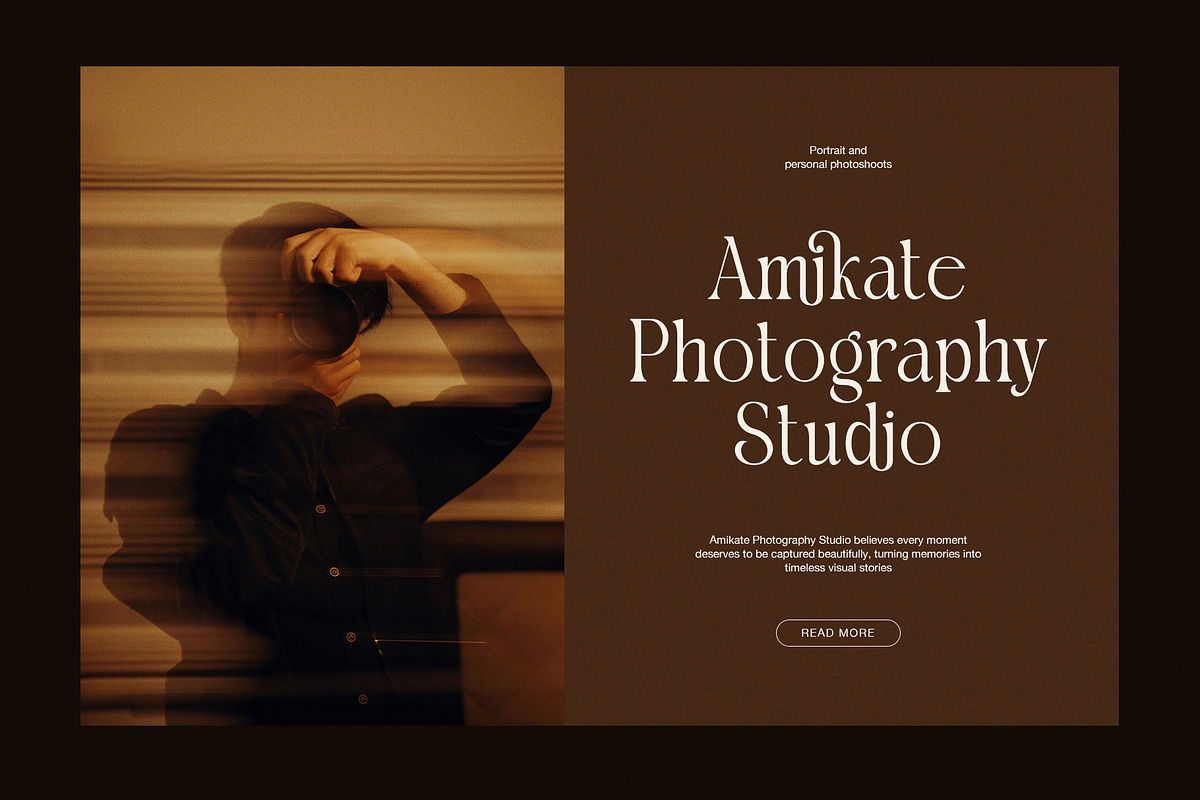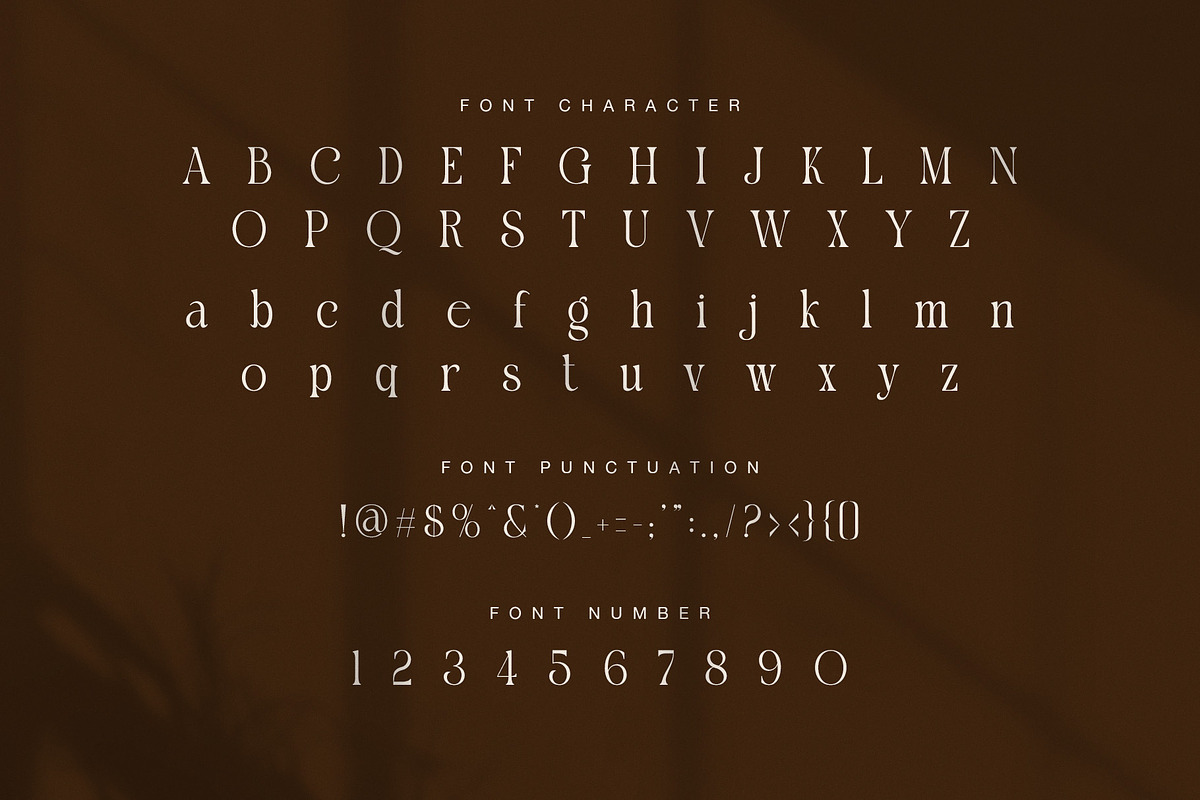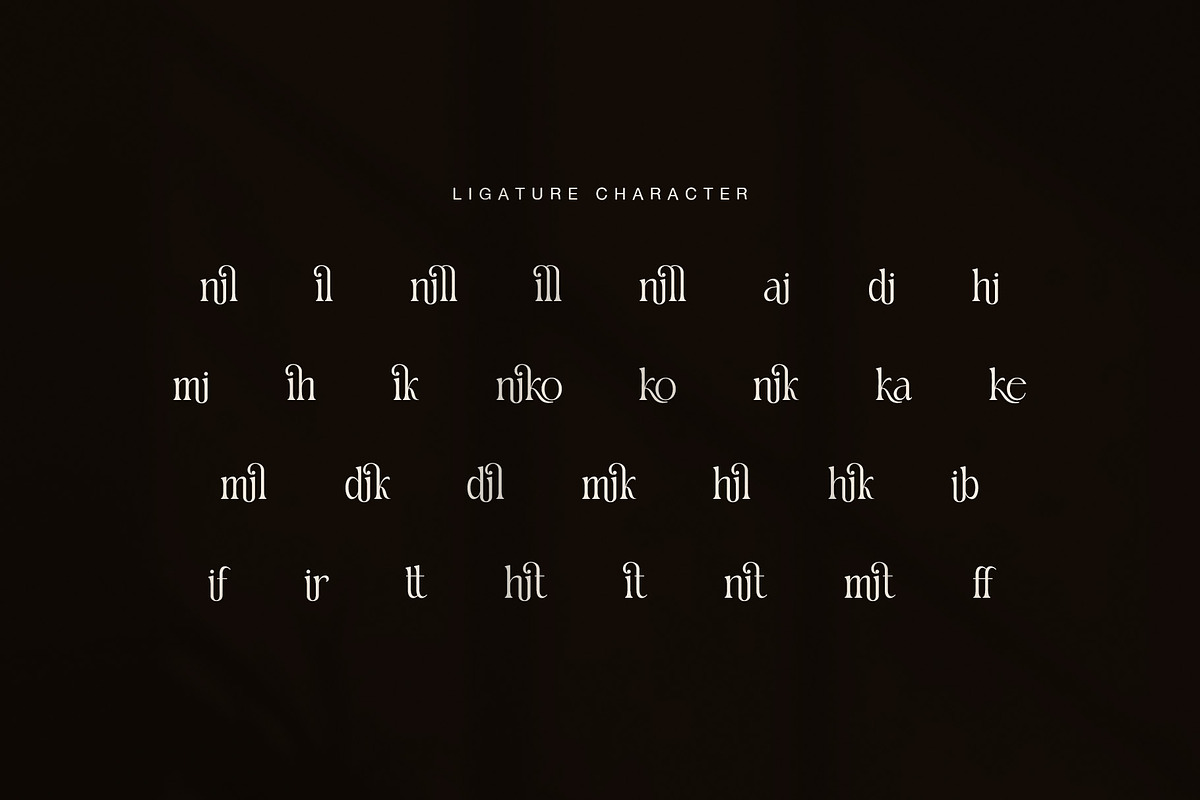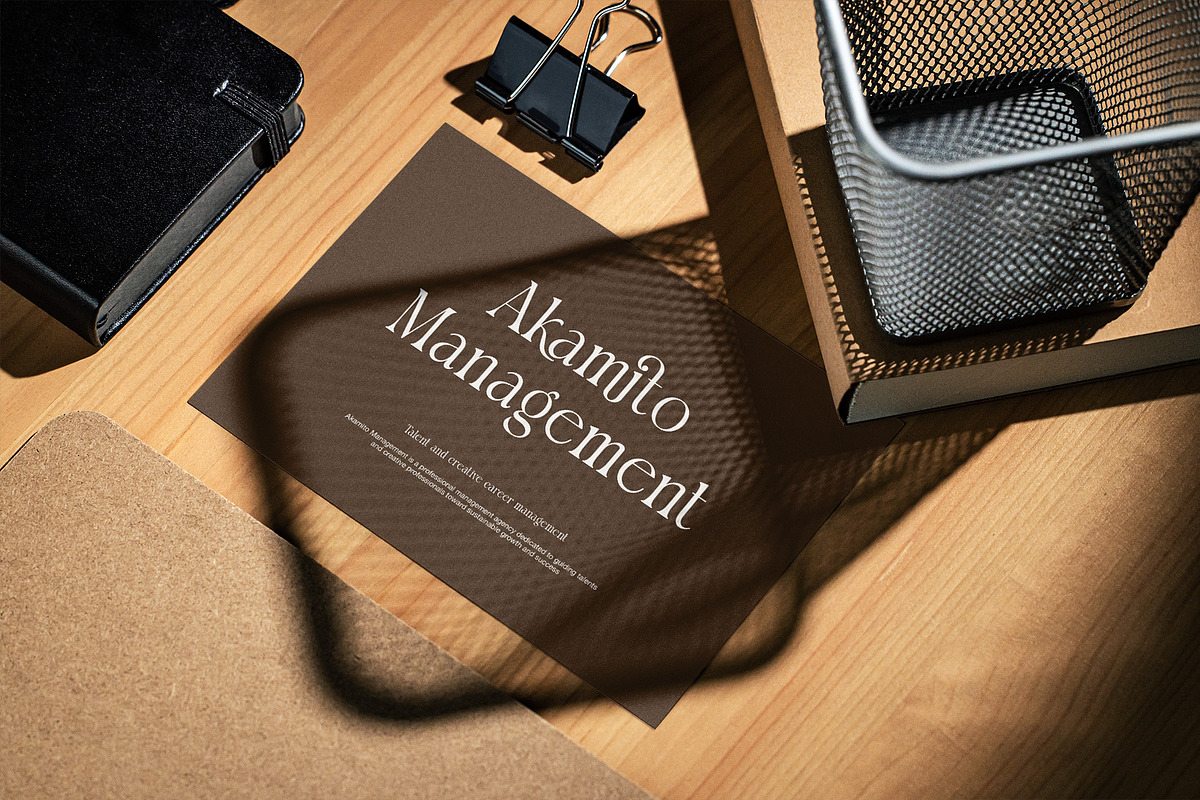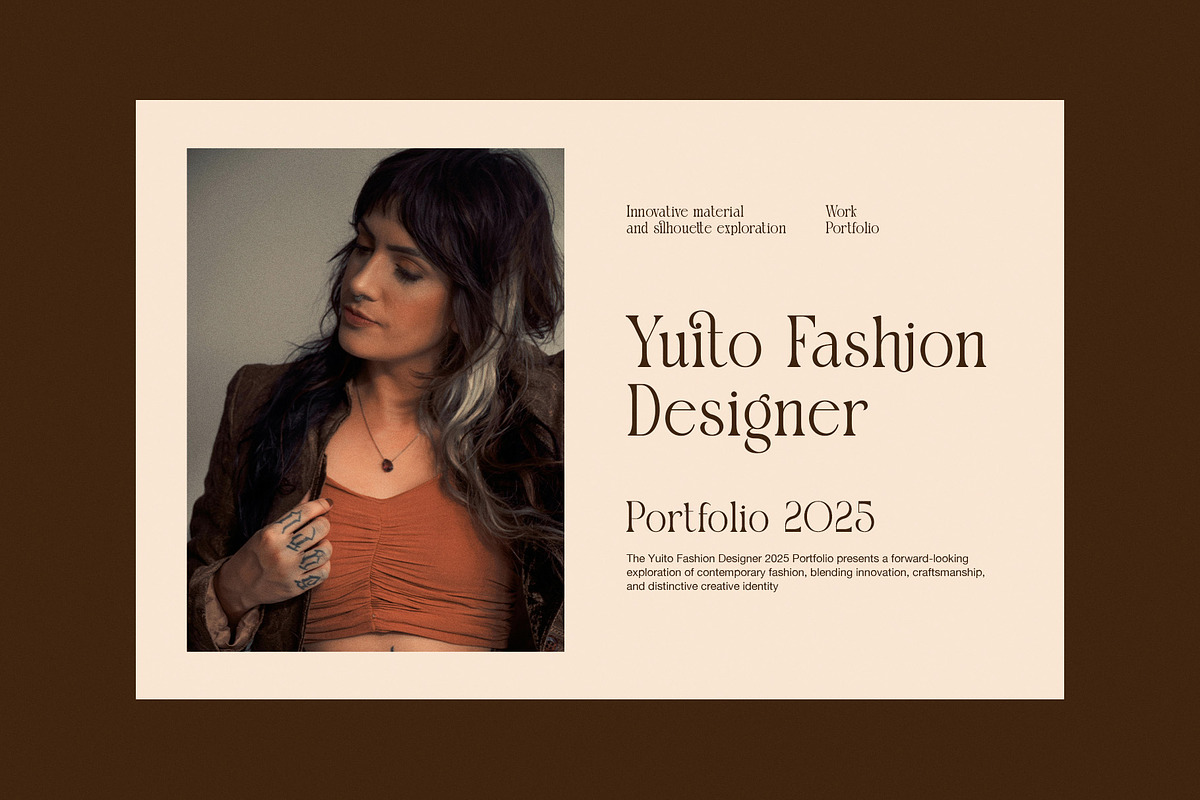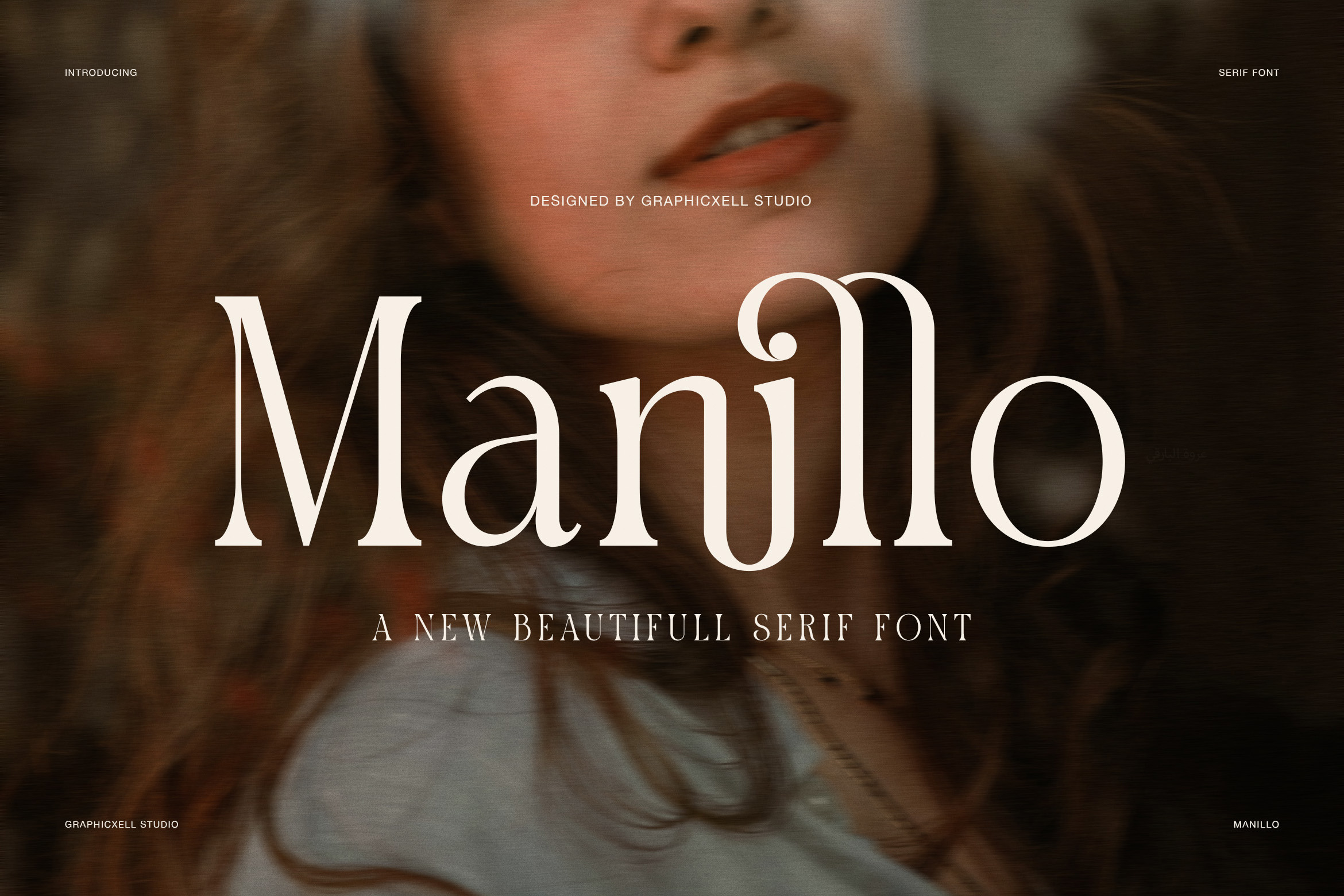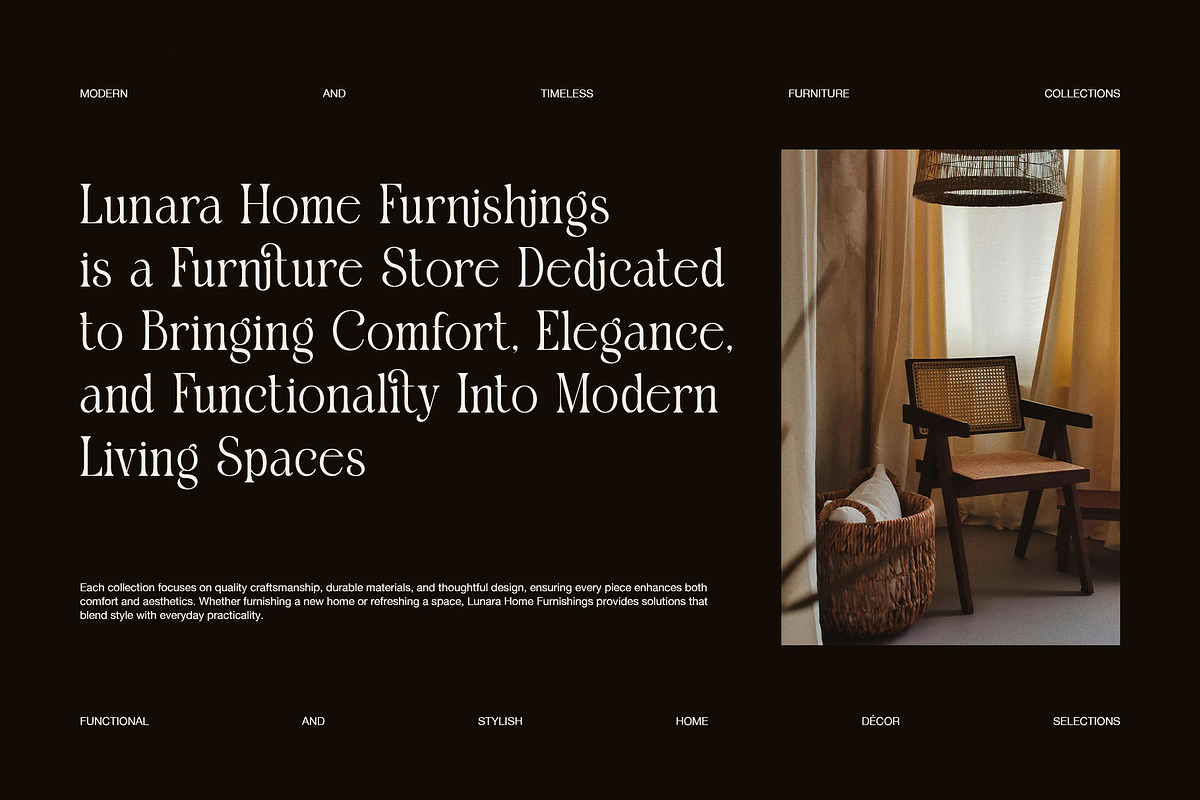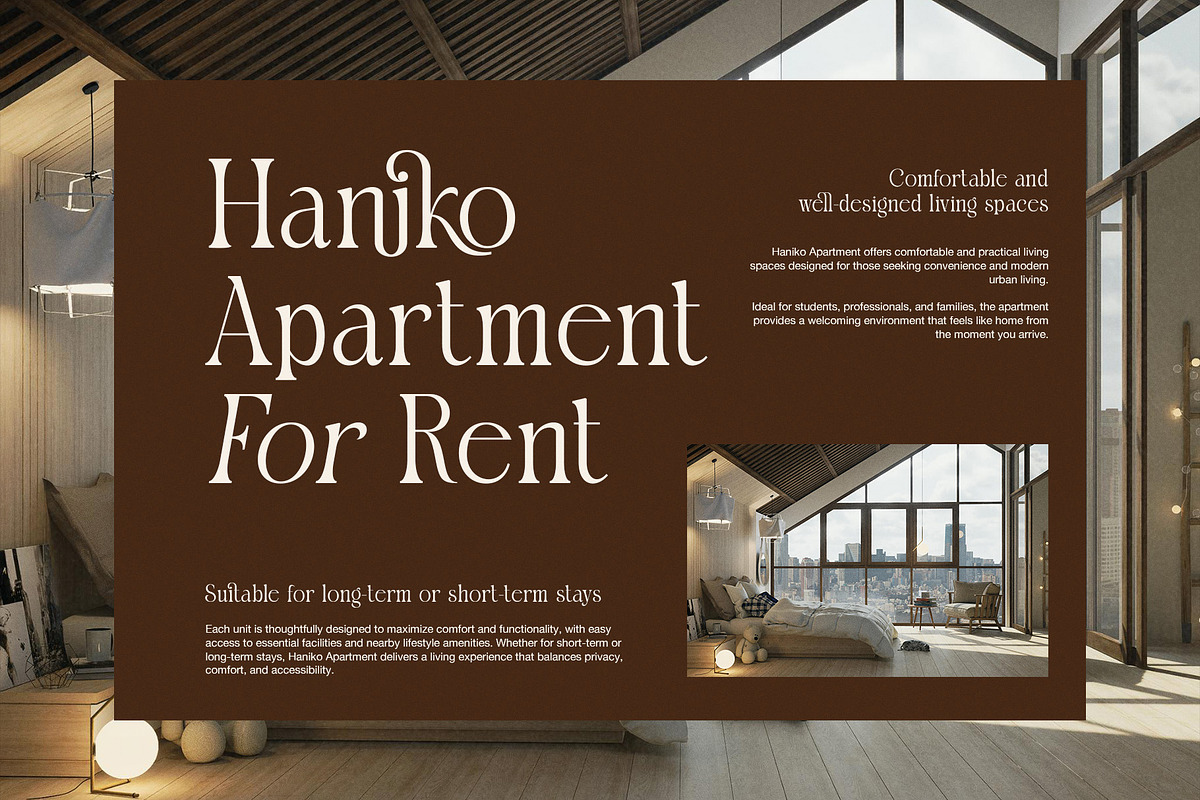
Manillo Elegant Serif Font
Manillo Font Style
Manillo is an elegant serif font with a soft modern mood and a refined classic base. It blends slim serif structure with rounded curves, light contrast, and graceful details. As a result, it feels clean, calm, and very stylish.
At first glance, Manillo looks simple. However, the beauty of this font lives in its subtle shape. The letters are smooth and balanced, while several characters carry soft curves that give the font a warm and polished tone. Because of that, Manillo feels timeless, yet still fresh for modern design.
Shape and Visual Character
The overall form of Manillo is neat and elegant. Its tall letterforms create a light and airy look, while the serif endings keep the text sharp and clear. In addition, the curved terminals and refined ligatures add a gentle sense of movement. Therefore, each word feels more natural and more custom.
This font also shows strong readability. Even though it has decorative charm, it still stays clean in many layouts. That balance makes Manillo useful for designers who want a serif font with beauty, softness, and control.
Best Uses for Manillo
Manillo works best in branding and display settings that need a graceful voice. It looks beautiful in fashion editorials, apartment branding, furniture campaigns, photography studios, lifestyle logos, and portfolio layouts. Moreover, it also fits product cards, beauty labels, invitation designs, and social media graphics.
Manillo is a great choice for:
- fashion branding
- editorial layouts
- apartment branding
- furniture campaigns
- photography studios
- portfolio covers
- beauty labels
- social media graphics
- Features and Benefits
Manillo offers more than a clean serif look. It gives designers elegant ligatures, useful punctuation, clear numbers, and refined letterforms for many creative projects. As a result, the font helps text feel more premium and more personal.
Even better, Manillo can adapt to many themes with ease. It can look calm for interior branding, stylish for fashion, and polished for lifestyle products. Because of that, it is a flexible serif font for both modern and classic design work. If you want a typeface that feels elegant, readable, and softly distinctive, Manillo is a smart choice for branding, display design, and visual storytelling.